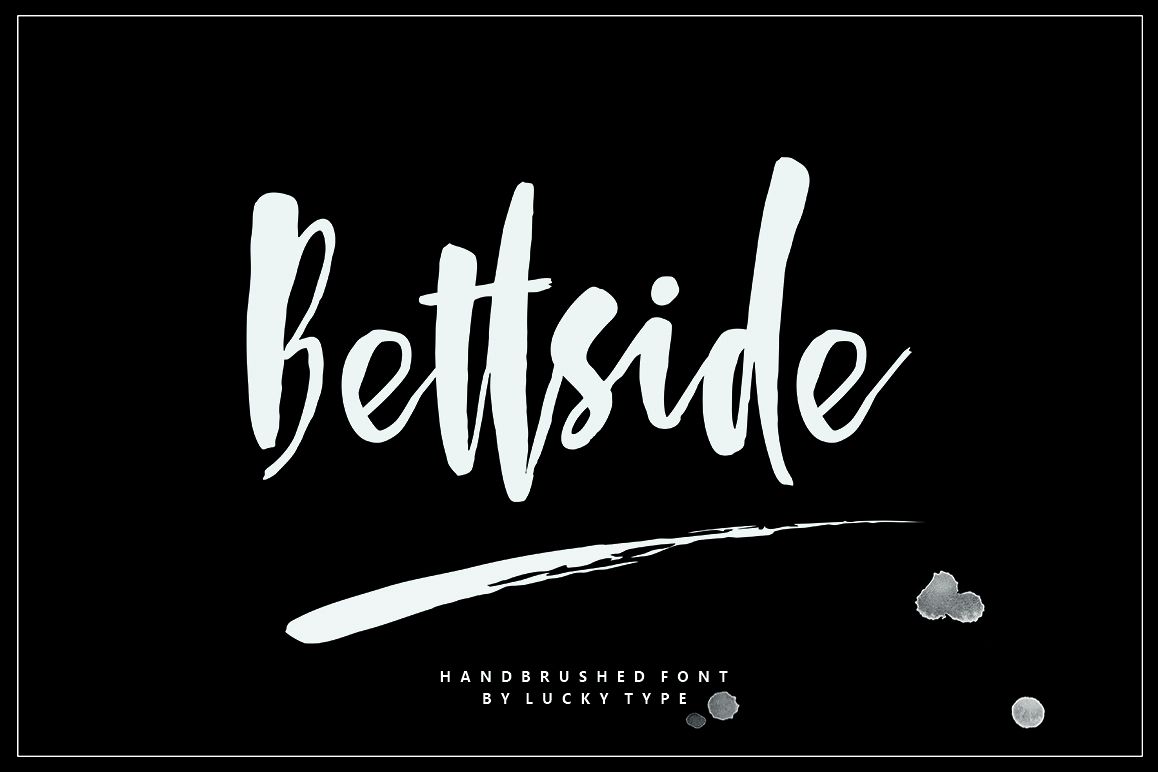
Bettside
Introducing Bettside handbrushed font.
this is You Are Stranger typeface, simple and easy to create awesome lettering, just type your words and then you will immediately see the great results.
Perfect for: using in ink or watercolor based designs or on its own as bold hand-brushed lettering.
Comes with upper and lowercase characters, large set of punctuation glyphs, numerals, and supports international languages. Can be used for various purposes. such as headings, logos, wedding invitation, t-shirt, letterhead, signage, label, news, posters, badges etc.